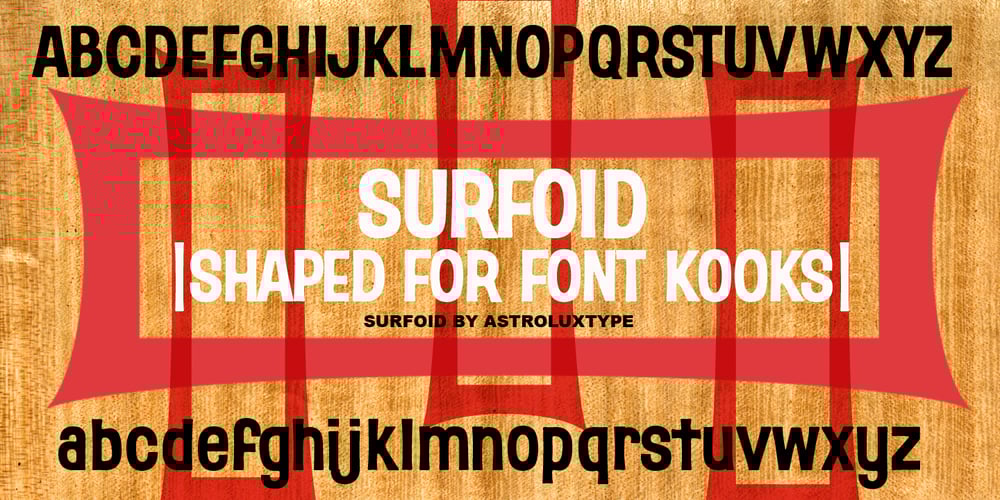
Surfoid
Surfoid font
Surfoid Font Family was designed by Glenn Parsons and published by astroluxtype. Surfoid contains 1 styles and family package options. Surfoid is a bold, soft, hazy, lazy and sleepy font-dude that is most happy under an umbrella at the beach holding a drink with an umbrella in the glass. It’s fun, fun, fun until daddy takes the T-Bird away because of the problems that too much fun creates. It’s a rounded off, a little blurry on the lazy edges and would never want to be a serif font. Serif is not the style of Surfoid. Dressed up and sophisticated, this font never wants to be in a suit and tie. Happy is to be in tie dye t-shirt…with its feet dug deep into the cool sand. This is a display headline font best seen at sizes greater than 36 points. It is a full glyph set with upper and lowercase forms. Very Stoked.